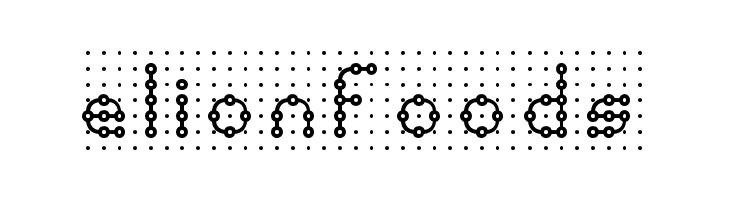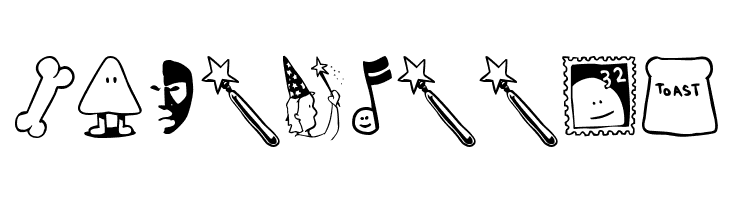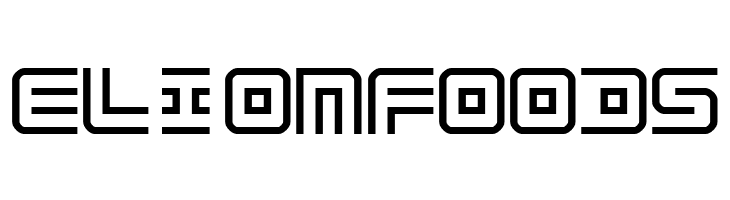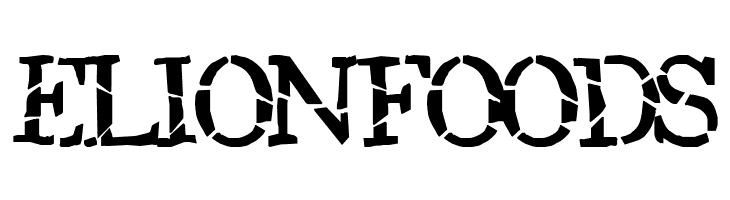
A dotted, grid-like font with characters formed by interconnected circles.
A whimsical collection of doodle-like illustrations with a playful and informal style.
A geometric, futuristic font with a stencil-like design and bold, angular lines.
An elegant and decorative font with cursive-like uppercase and stylish lowercase letters.
A bold, stencil-like font with a rugged, industrial design.